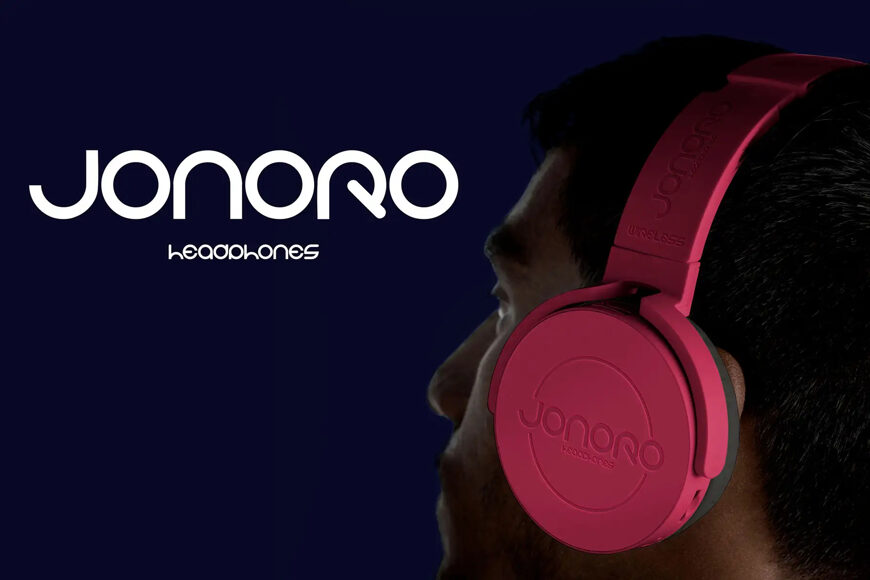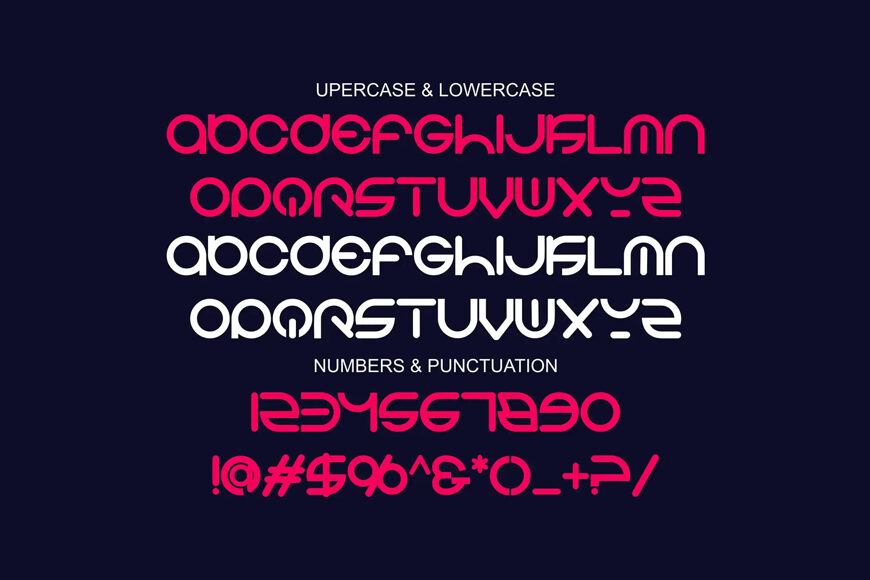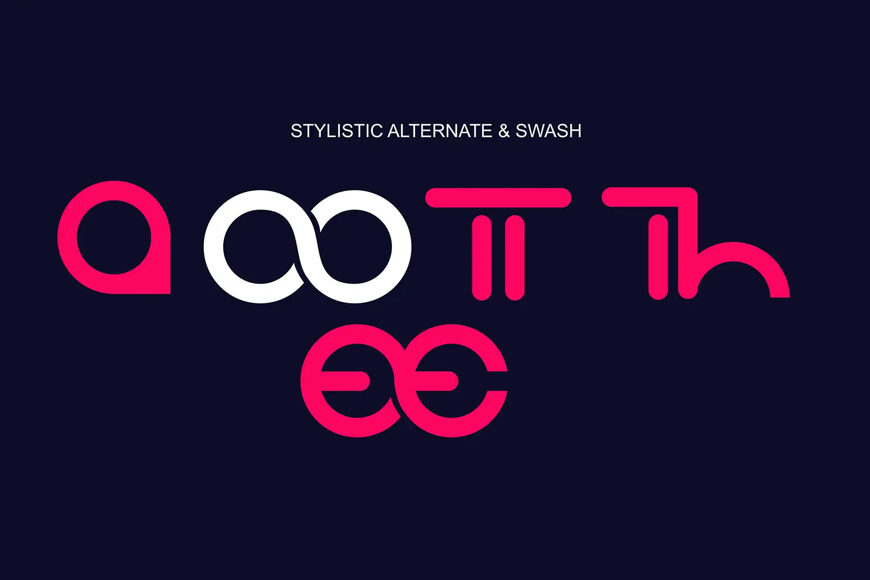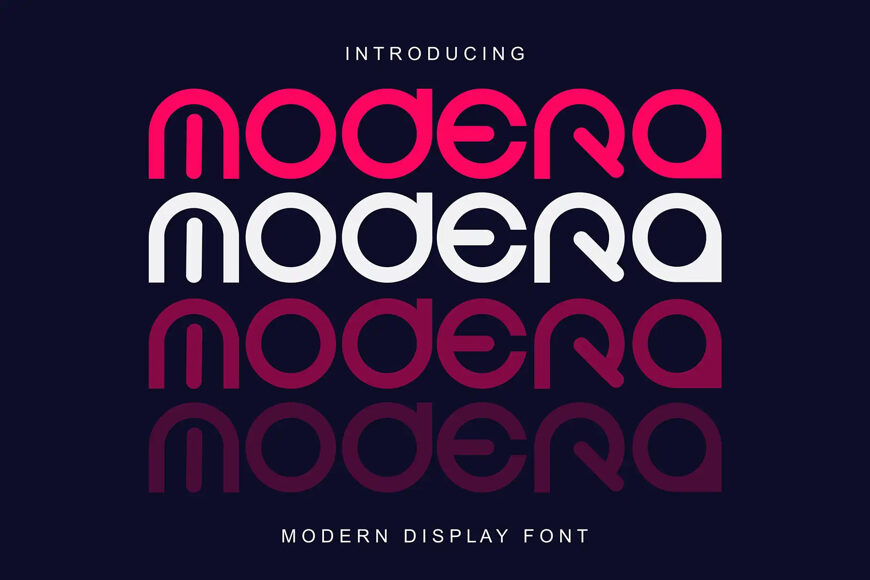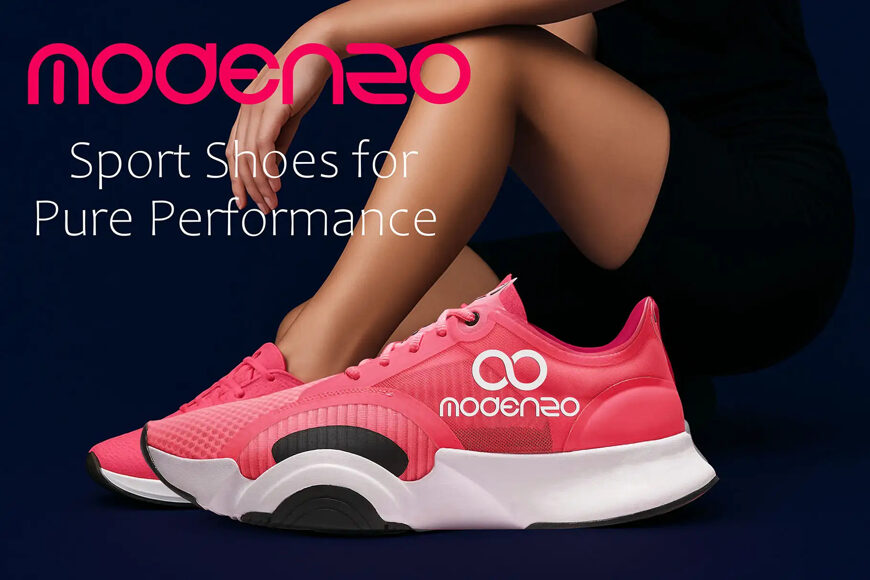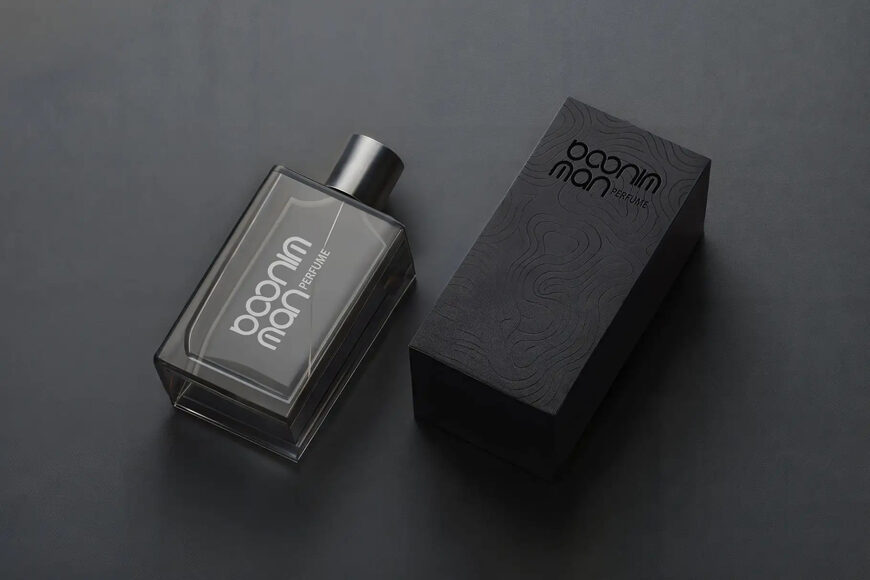
Modera is a clean and confident sans serif font designed for designers seeking a direct visual impact. Ideal for logos, titles, and headlines, Modera’s modern style suits large text and keeps layouts clean.
With added features like alternates and swash characters, designers can add personality to their work, choosing between a sharp minimal look or a bold statement. This versatility makes Modera perfect for various projects, from branding to social media and editorial design.